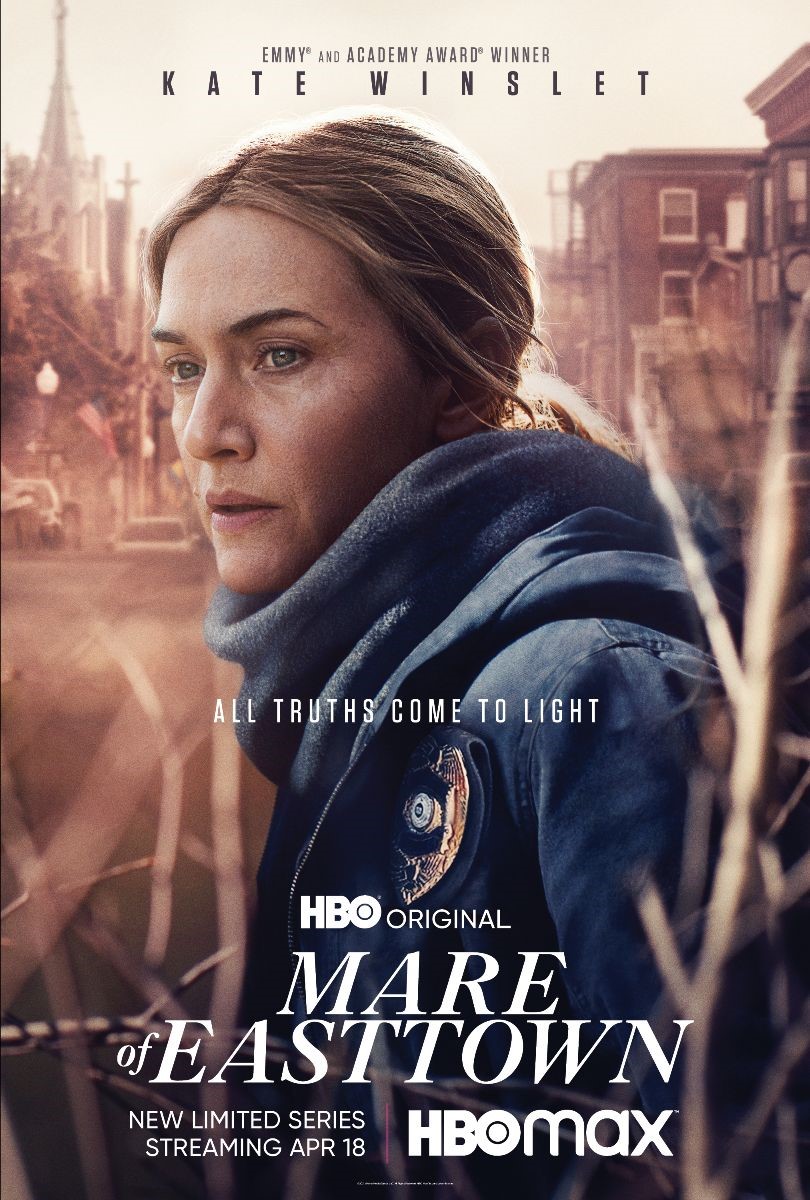
Mare of Easttown Font
CrimeMare of Easttown is a crime drama television series that follows the story of a small-town detective who is tasked with solving a murder case while also dealing with personal and professional struggles. The series stars Kate Winslet in the lead role and premiered on HBO in April 2021.
The poster features the film title in a font called Caslon Bold Italic. Originally based on the traditional serif typefaces created by English type founder William Caslon I, Caslon is now available as a digital font.